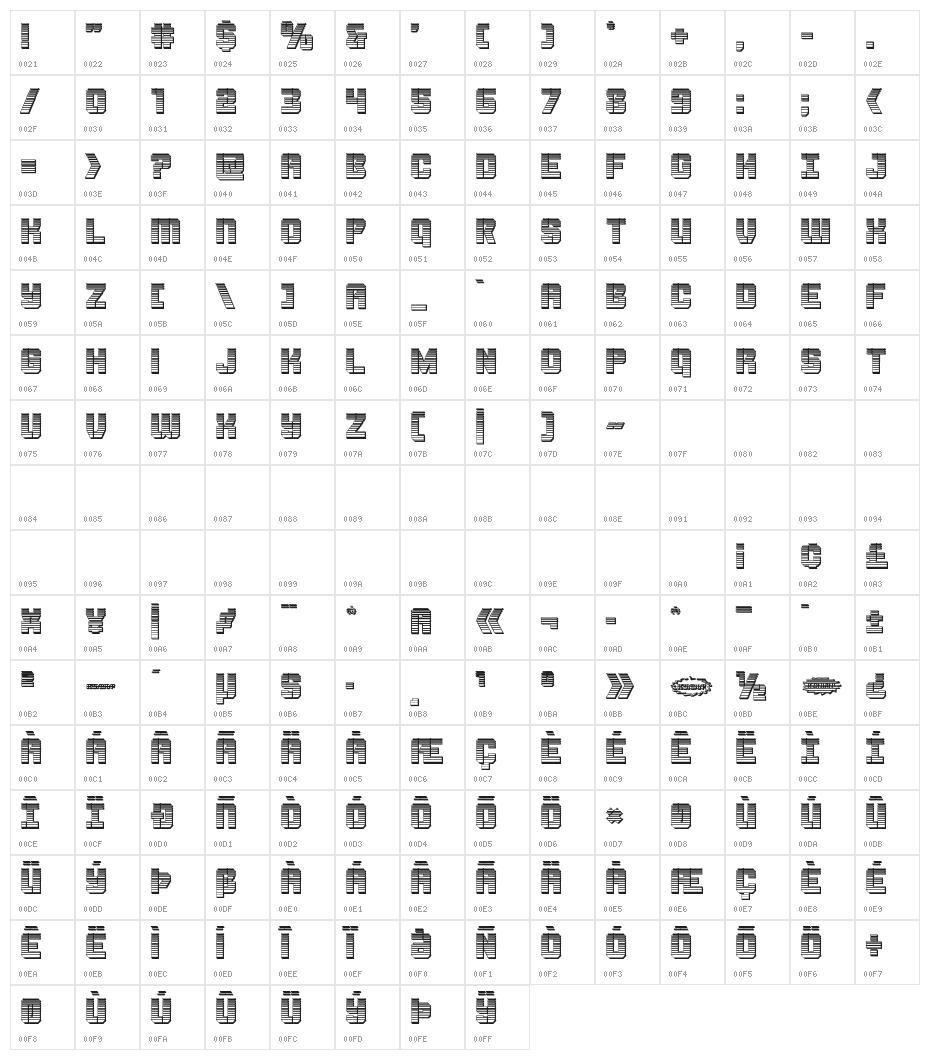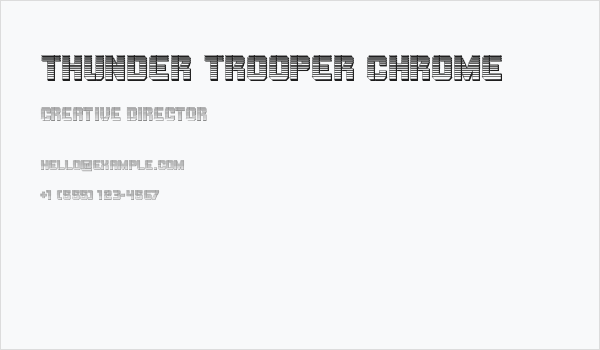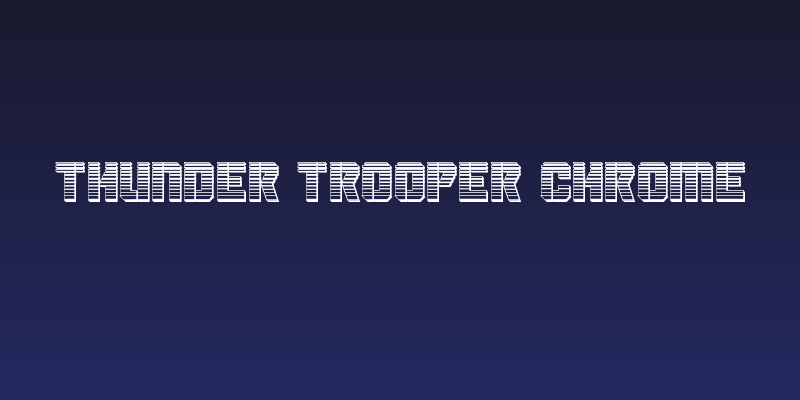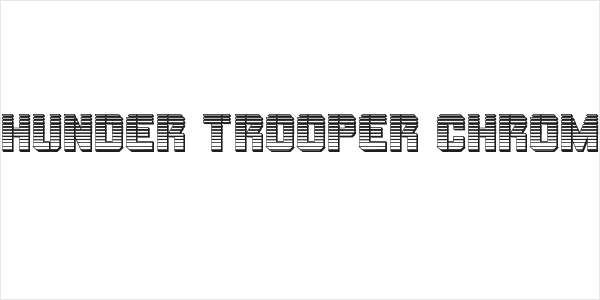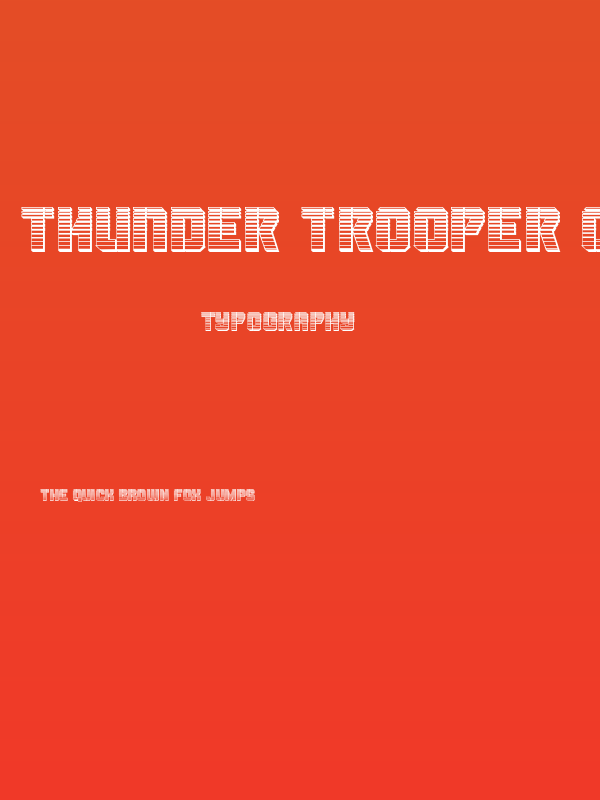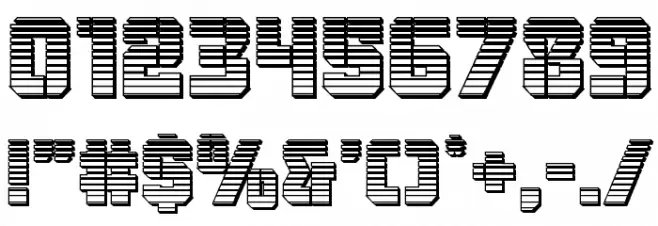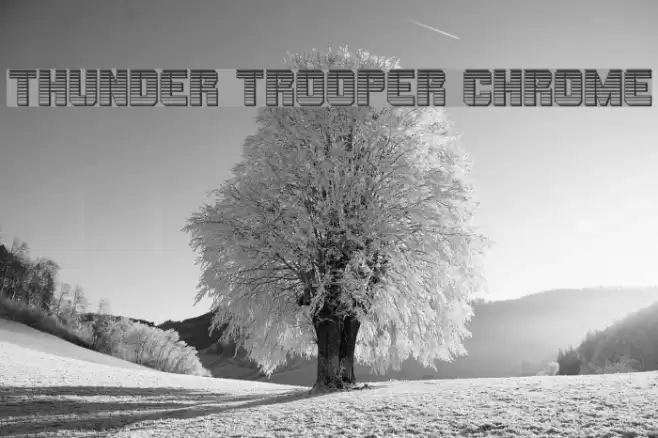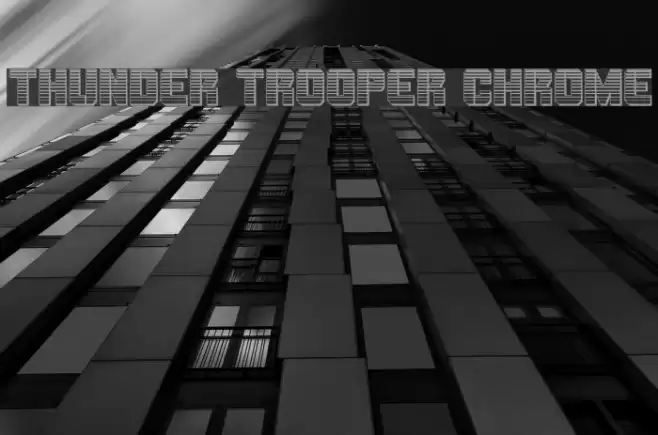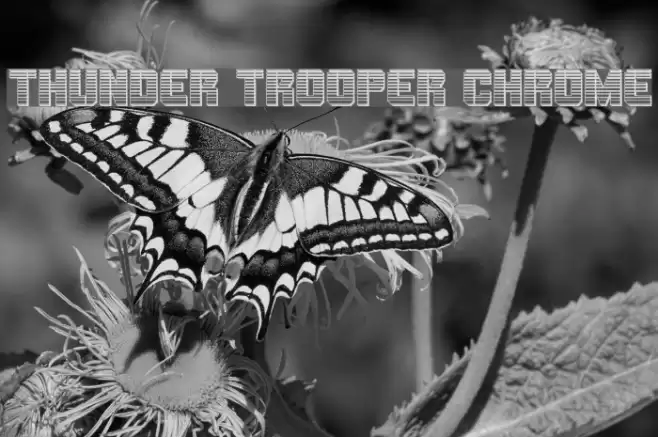
Thunder Trooper Chrome Font
Thunder Trooper Chrome Description
This font features a bold, futuristic design with a three-dimensional, chrome-like appearance. Each character is constructed with a series of parallel lines that create a layered effect, giving the impression of depth and metallic sheen. The geometric structure is consistent across all characters, providing a cohesive and striking visual impact. The uppercase and lowercase letters maintain a uniform style, while the numerals and special characters complement the overall aesthetic. This font is ideal for projects that require a modern, tech-inspired look.
| Proposed Projects | Ideal for sci-fi themed posters, video game titles, tech branding, and futuristic event invitations. |